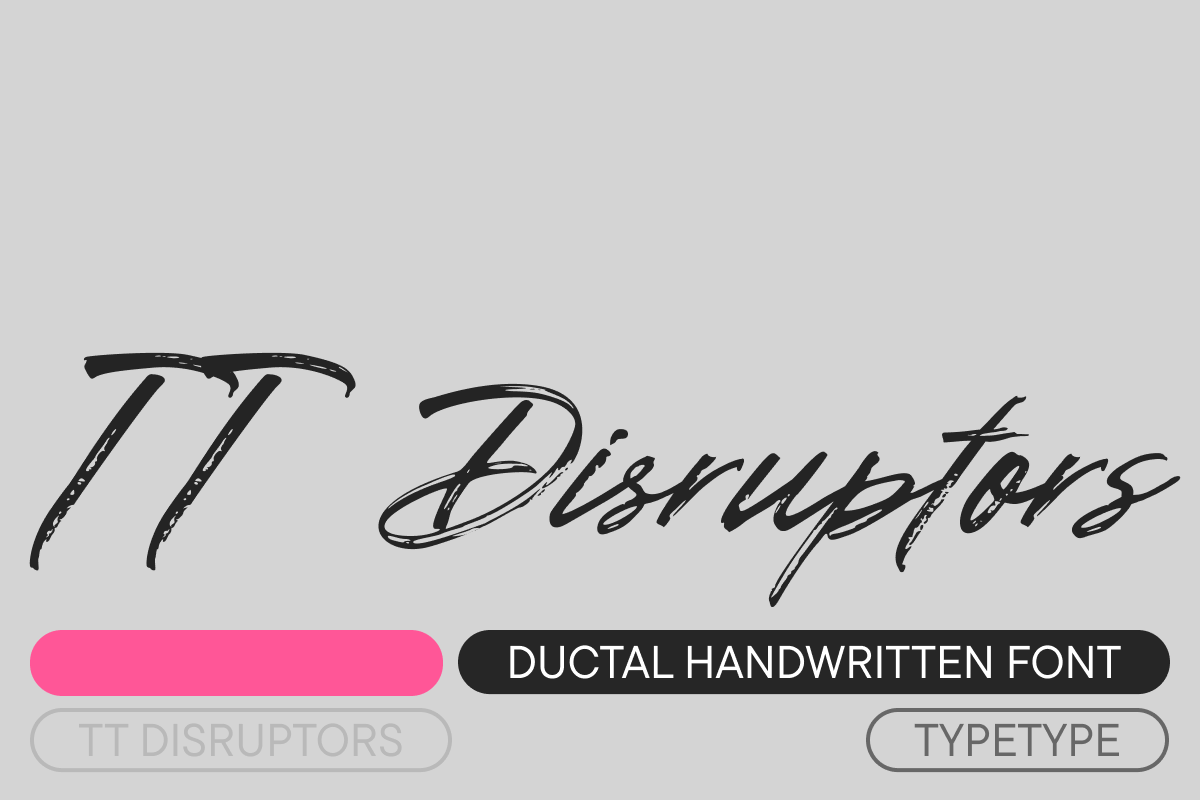
TT Disruptors Regular
TT Disruptors is a ductile marker-drawn handwritten typeface. Its design is one-of-a-kind: worn edges, varying stroke thickness, and elongated ascenders and descenders give it a lively, dynamic texture and handcrafted feel. The personality of this font is spirited and emotional, yet warm and soulful. This typeface is perfect for packaging design, branding, and creating visual identities. It’s an ideal choice for projects where handcrafted authenticity, individuality, and expression are key.